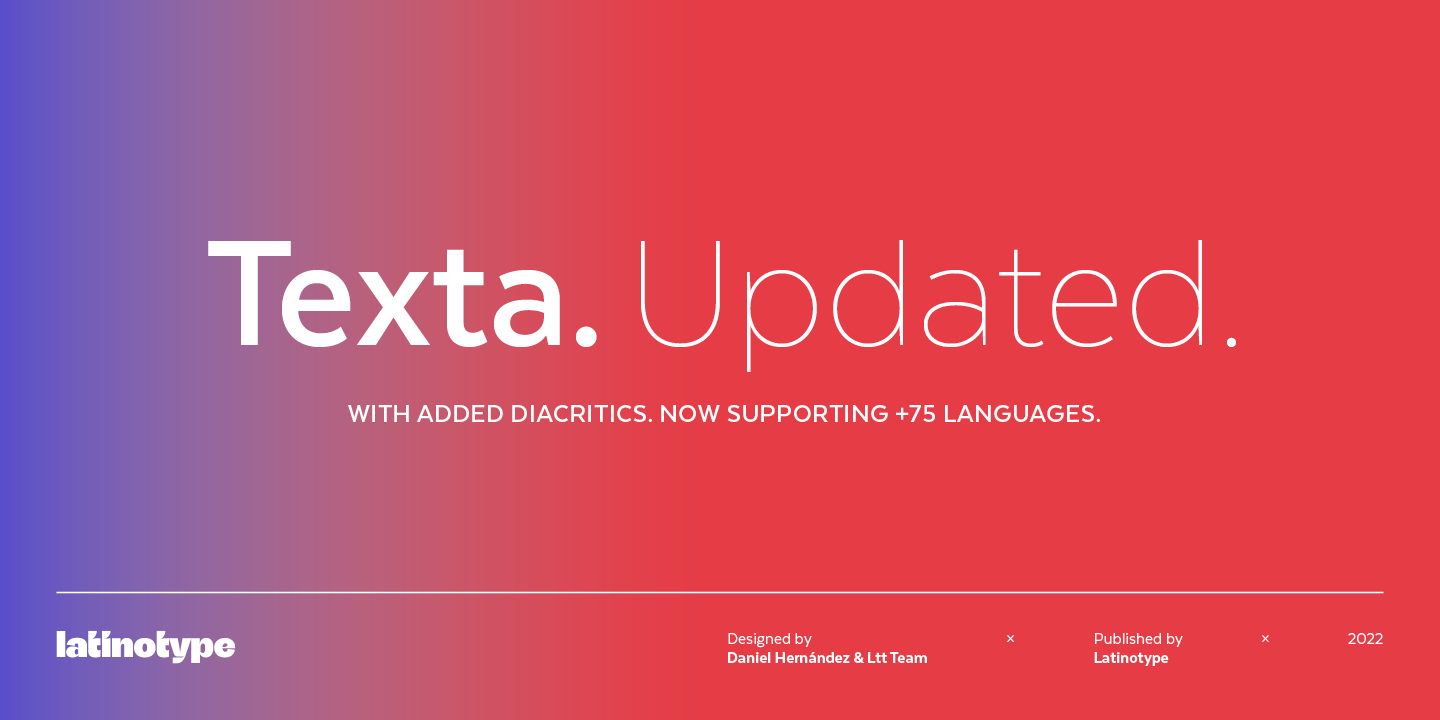
Texta Font is a versatile sans-serif typeface designed for clarity and impact. Perfect for branding, editorial design, web content, and advertising, this font offers clean lines and a contemporary look that enhances readability and professionalism.
What makes Texta Font Free Download so exciting is its balanced proportions and geometric shapes, allowing designers to create strong, modern typography that works well across various mediums and sizes.
The Texta Font family typically includes multiple weights and styles, such as Light, Regular, Bold, and Italic, providing flexibility to build dynamic and harmonious typographic hierarchies.
Whether you’re designing corporate identities, websites, marketing materials, or digital campaigns, Texta Font Free Download delivers the clean aesthetics and versatility needed to make your projects stand out with confidence.